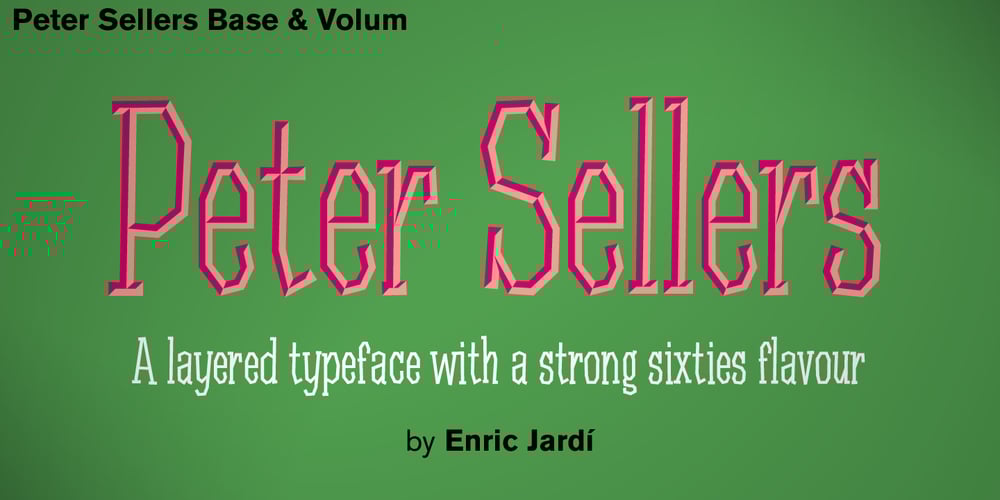
Peter Sellers Font Family was designed by Enric Jardí and published by Type-Ø-Tones. Peter Sellers contains 2 styles and family package options. Peter Sellers is a revival display font. We wanted to pay homage to the fifties graphic design with this stylish typeface. Use the “Base” style alone or overlap it with “Volume” and change it to another colour.